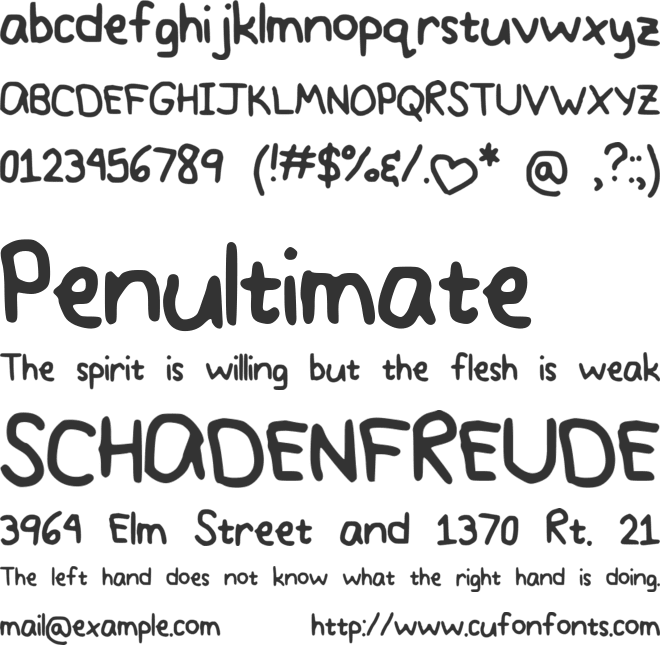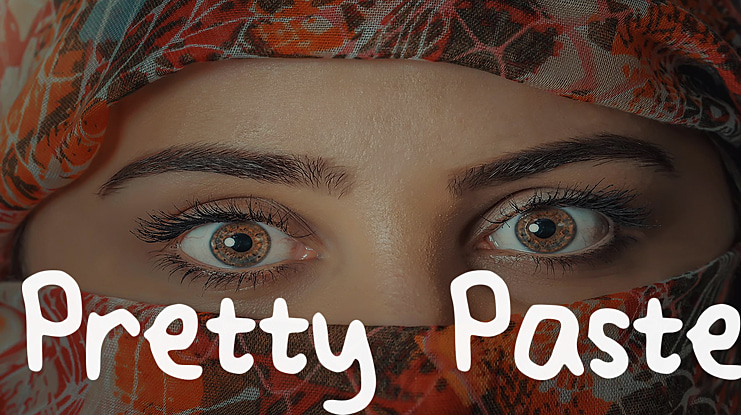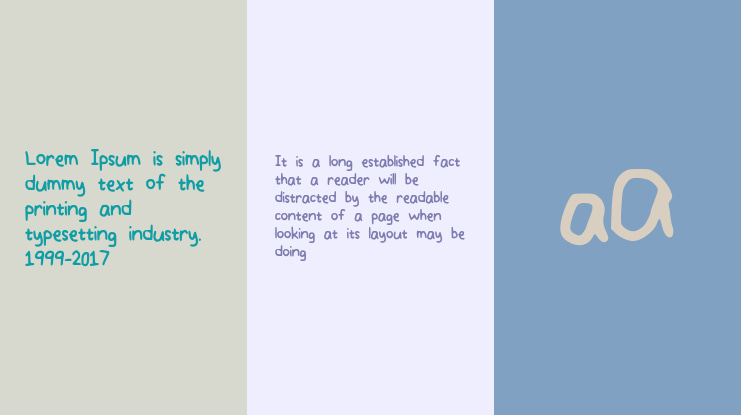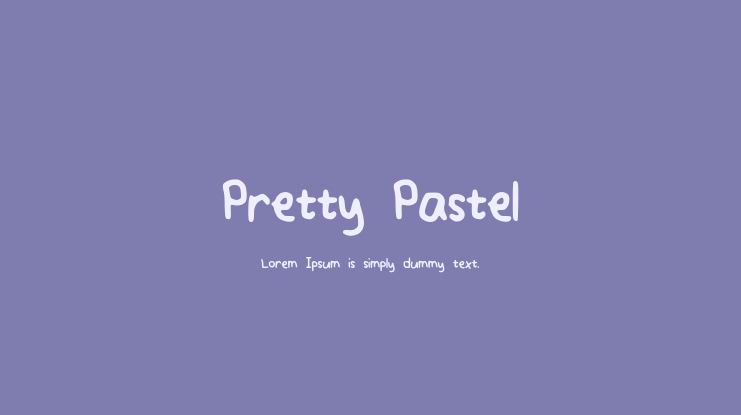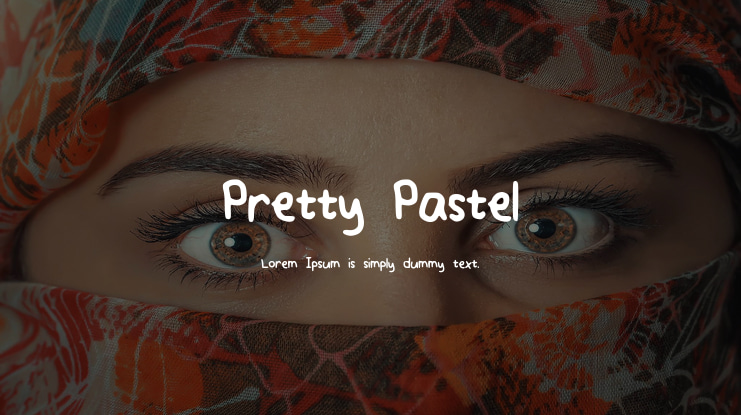
Pretty_Pastel Font
After almost a year of being idle, I'm back with a fun marker-type font, Pretty Pastel. I'm pretty inspired by light colored Tumblr images I get on my dashboard, so I thought that I should share this sweet little idea with you guys :3
The heart symbol is made by pressing |